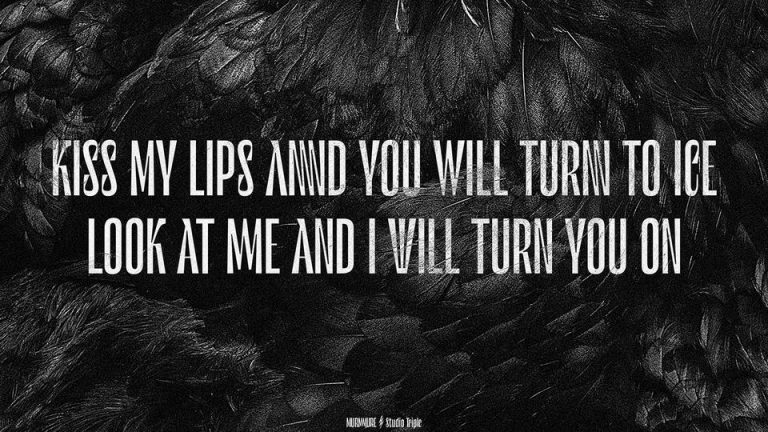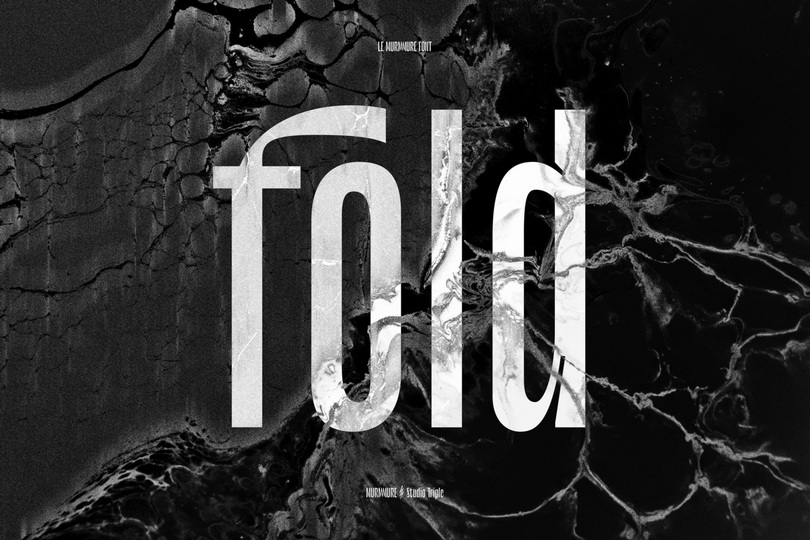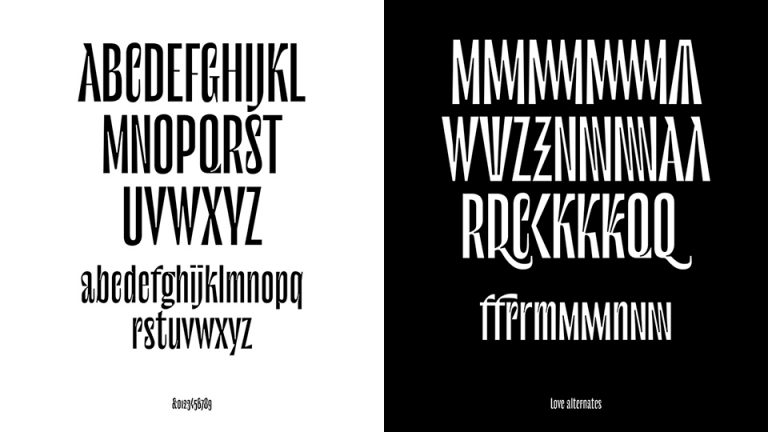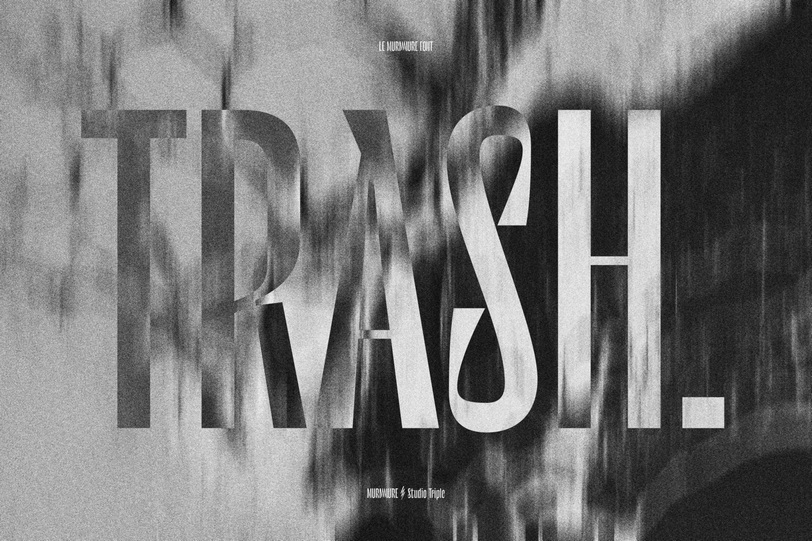
Le Murmure Typeface
Hi designer! This is a modern serif typeface, a especially distinctive, editorial and elegant font, which has been complemented by surprising stylistic variations. Introducing Le Murmure Font. Le Murmure has been crafted from scratch with a structural logic of its own: a fusion of pure geometry and optical balance. Le Murmure is suitable for Logo, greeting cards, quotes, posters, branding, name card, stationary, design title, blog header, art quote, typography.